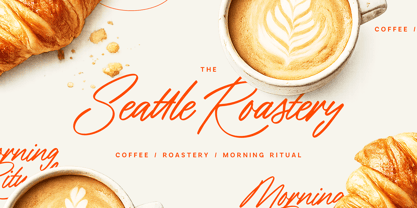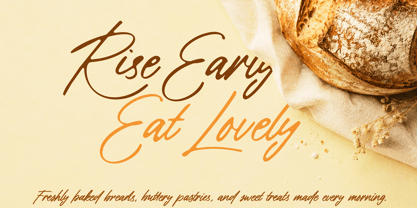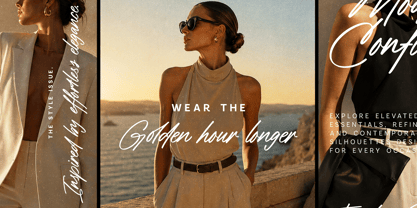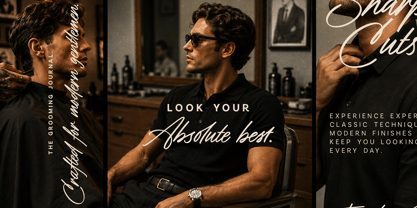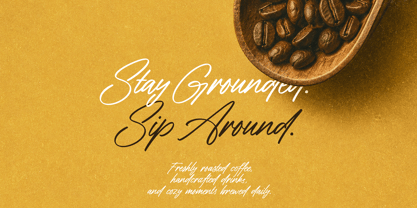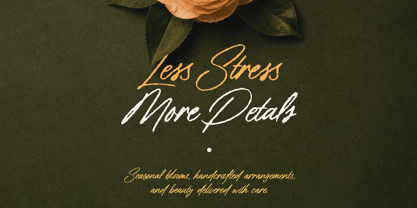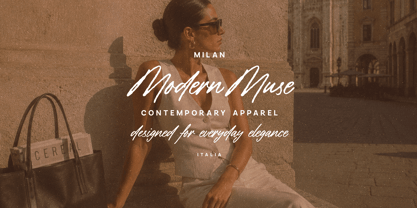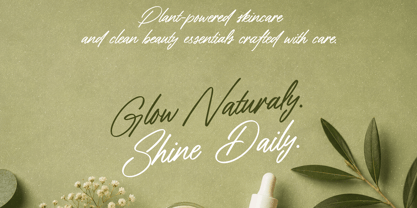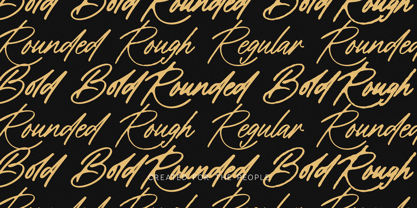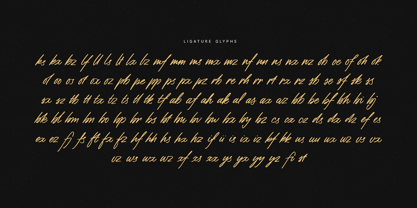
Rust and Ink
by VP Creative Shop
The Rust and Ink Font Family was designed by Vladimir Fedotov, Plamen Petrov and published by VP Creative Shop. Rust and Ink contains 6 styles and family package options. More about this family
Rust & Ink is a bold and expressive handwritten signature font that captures the essence of natural movement, authentic ink texture, and effortless personality. With its energetic strokes, stylish curves, and unique imperfections, this font delivers a genuine hand-lettered appearance while maintaining clarity and versatility. Available in Regular and Bold styles, Rust & Ink allows for striking contrast in headlines, logos, packaging, and editorial layouts. The thoughtfully designed ligatures enhance word connections, providing names, quotes, and brand messages with a distinctive custom-lettered finish, making it ideal for branding and creative projects.
Designers: Vladimir Fedotov, Plamen Petrov
Foundry: VP Creative Shop